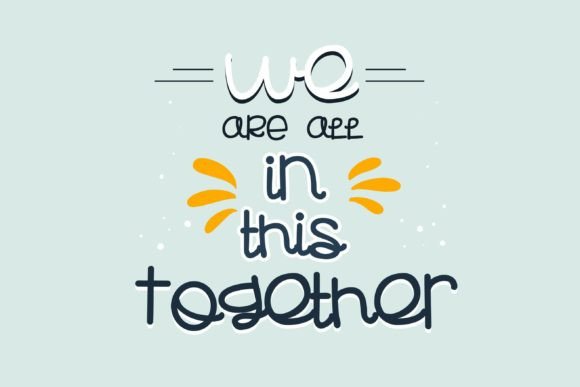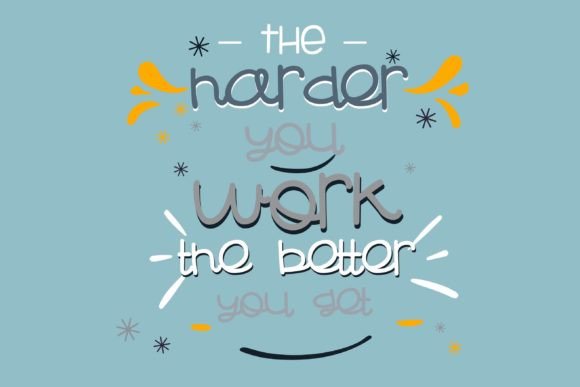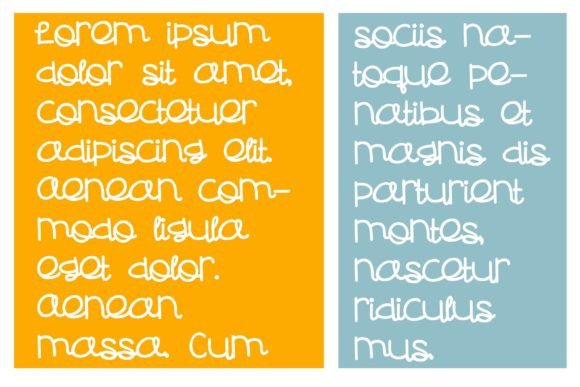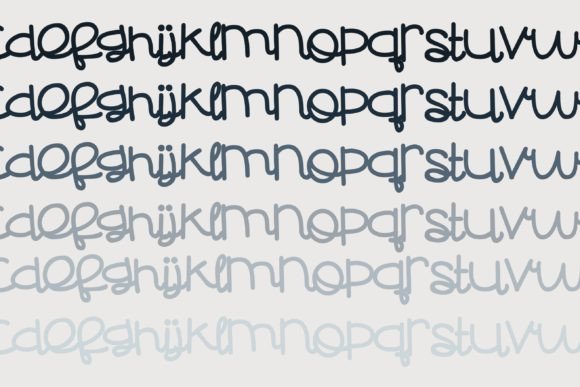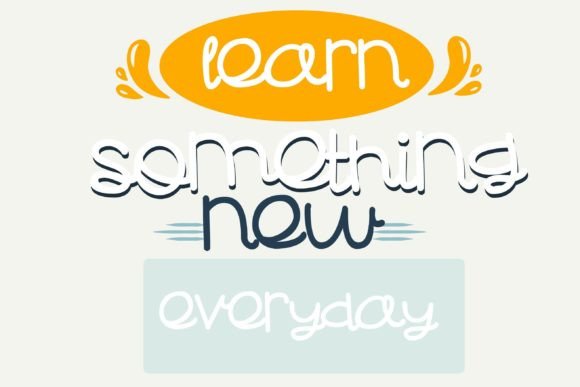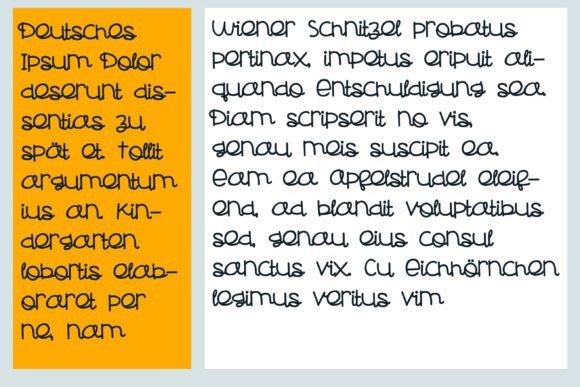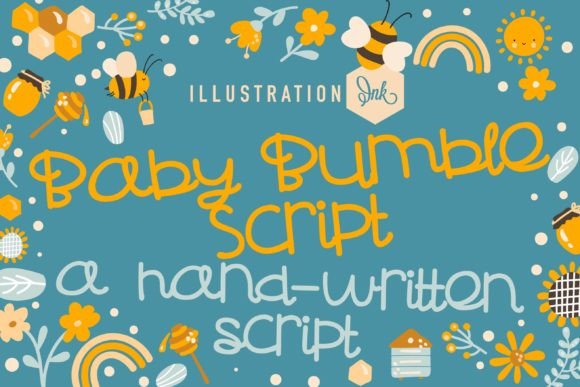
Baby Bumble Script Font: Add a Touch of Whimsy to Your Designs
Are you looking for a font that embodies the carefree spirit of childhood? Look no further than the Baby Bumble Script Font! This delightful and quirky handwritten font is perfect for designers and crafters who want to add a touch of playfulness and innocence to their projects.
The Charm of Baby Bumble Script
Baby Bumble Script is a beautiful, hand-crafted font that captures the essence of whimsy and fun. Its letterforms are designed to dance across the page, creating a sense of movement and energy. The font’s quirky and irregular shapes give it a unique, handmade feel that’s sure to delight audiences of all ages.
Whether you’re designing a children’s book, creating party invitations, or working on a craft project, Baby Bumble Script is the perfect choice. Its playful and charming character makes it ideal for projects that require a touch of warmth and personality.
Perfect for Children’s Books and Party Invitations
One of the best things about Baby Bumble Script is its versatility. It’s perfect for a wide range of projects, from children’s books and party invitations to craft projects and DIY signage. The font’s playful and whimsical character makes it a great choice for:
- Children’s books: Add a touch of magic to your storybook with Baby Bumble Script’s delightful letterforms.
- Party invitations: Create adorable and eye-catching invitations that set the tone for a fun and festive celebration.
- Craft projects: Add a personal touch to your craft projects, such as scrapbooking, card making, and DIY signage.
Why Choose Baby Bumble Script?
So, why choose Baby Bumble Script over other fonts? Here are just a few reasons:
- Unique and quirky character: Baby Bumble Script has a one-of-a-kind personality that’s sure to stand out.
- Handwritten feel: The font’s irregular shapes and letterforms give it a warm, handmade feel.
- Versatile: Baby Bumble Script is perfect for a wide range of projects, from children’s books to party invitations.
- Easy to read: Despite its quirky character, Baby Bumble Script is easy to read and understand.
Tips for Using Baby Bumble Script
Here are a few tips for getting the most out of Baby Bumble Script:
- Use it with color: Baby Bumble Script looks great with bright, bold colors that match its playful character.
- Experiment with sizes: Try using Baby Bumble Script in different sizes to create visual interest and hierarchy.
- Pair it with other fonts: Baby Bumble Script pairs well with other playful fonts, as well as more serious fonts to create contrast.
In conclusion, Baby Bumble Script Font is a delightful and quirky handwritten font that’s perfect for designers and crafters who want to add a touch of playfulness and innocence to their projects. Its whimsical letterforms and unique character make it ideal for children’s books, party invitations, and craft projects. With its versatility, ease of use, and adorable charm, Baby Bumble Script is sure to bring a smile to your face and spread happiness!